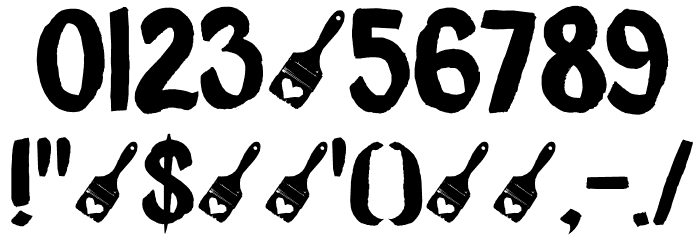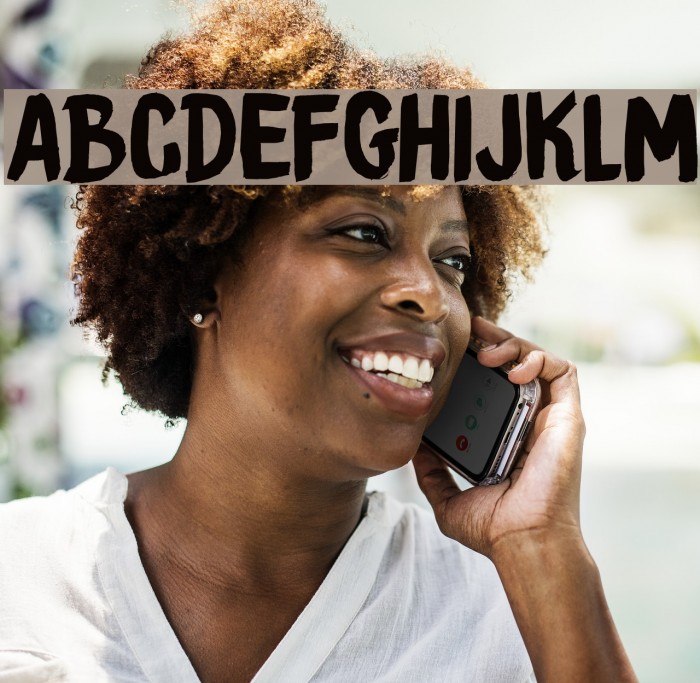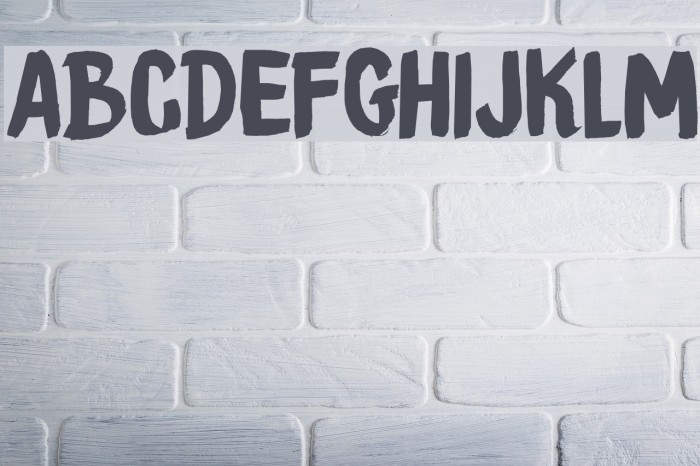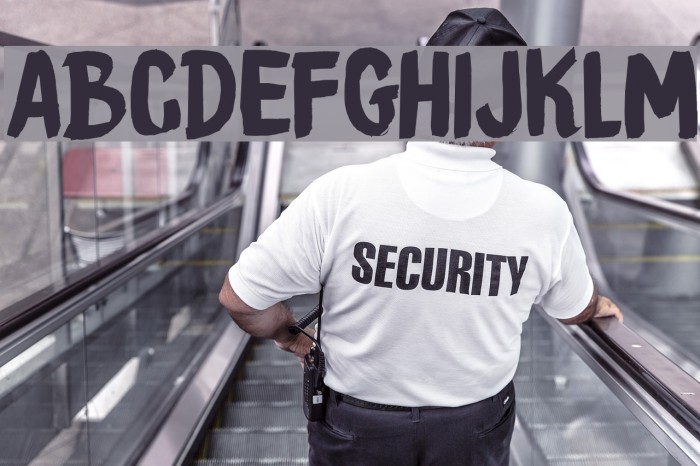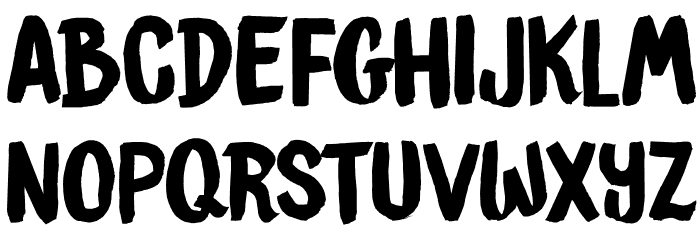
DKBrushCrush Font
DKBrushCrush Description
This font features a bold, brush-stroke style that exudes a sense of energy and creativity. The letters are crafted with a hand-painted appearance, giving them a dynamic and artistic flair. Each character has a unique, slightly irregular shape, adding to the organic feel of the design. The strokes are thick and expressive, with varying widths that create a lively texture. This font is perfect for projects that require a personal touch or a bold statement, such as posters, branding, or artistic endeavors. The inclusion of special characters and numbers maintains the cohesive brush style, ensuring versatility across different uses.
A bold, brush-stroke font with an energetic and artistic style from Script fonts.
- Proposed Projects: Ideal for posters, branding, artistic projects, and any design needing a bold, creative touch.
- Overall Style: Artistic, Energetic